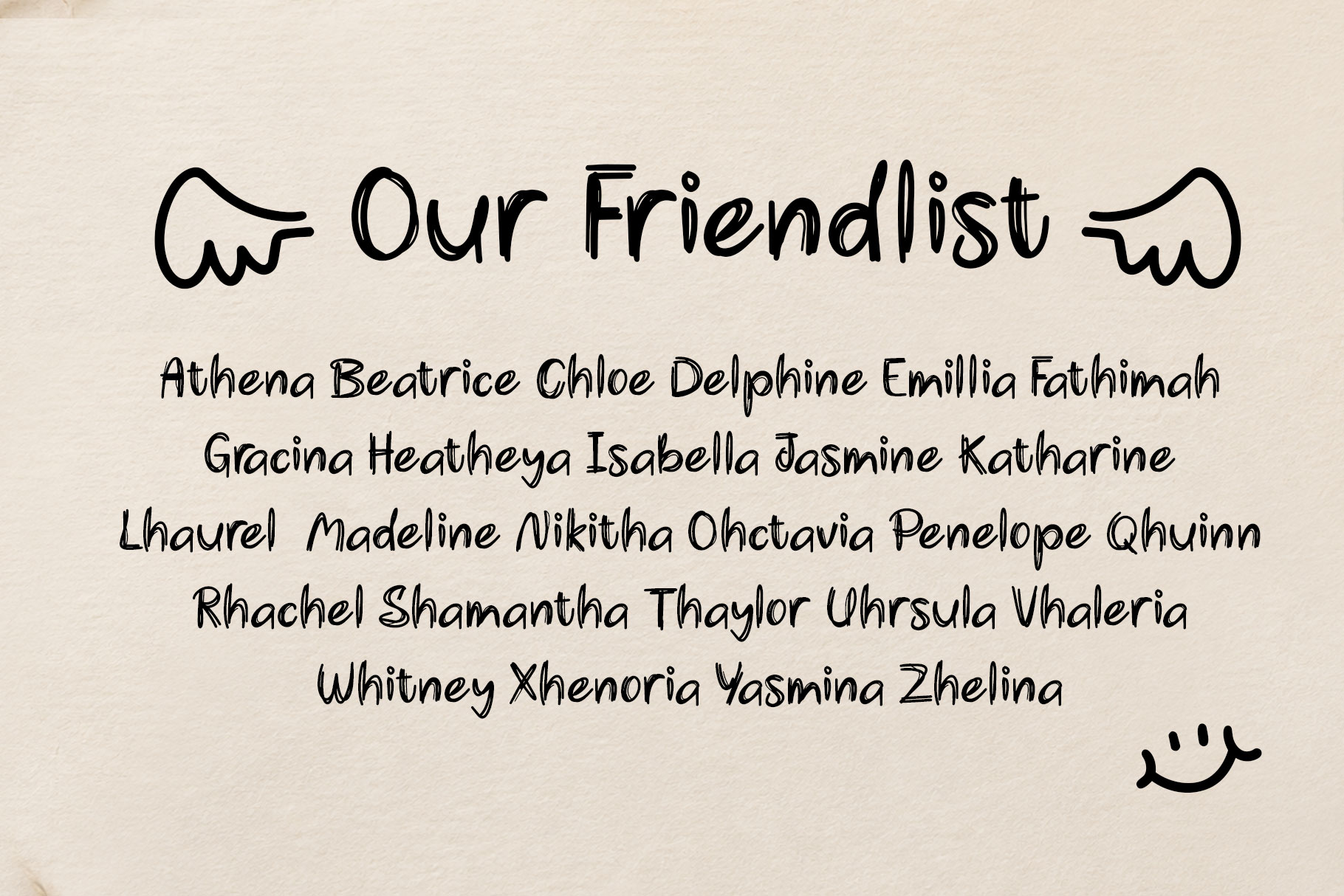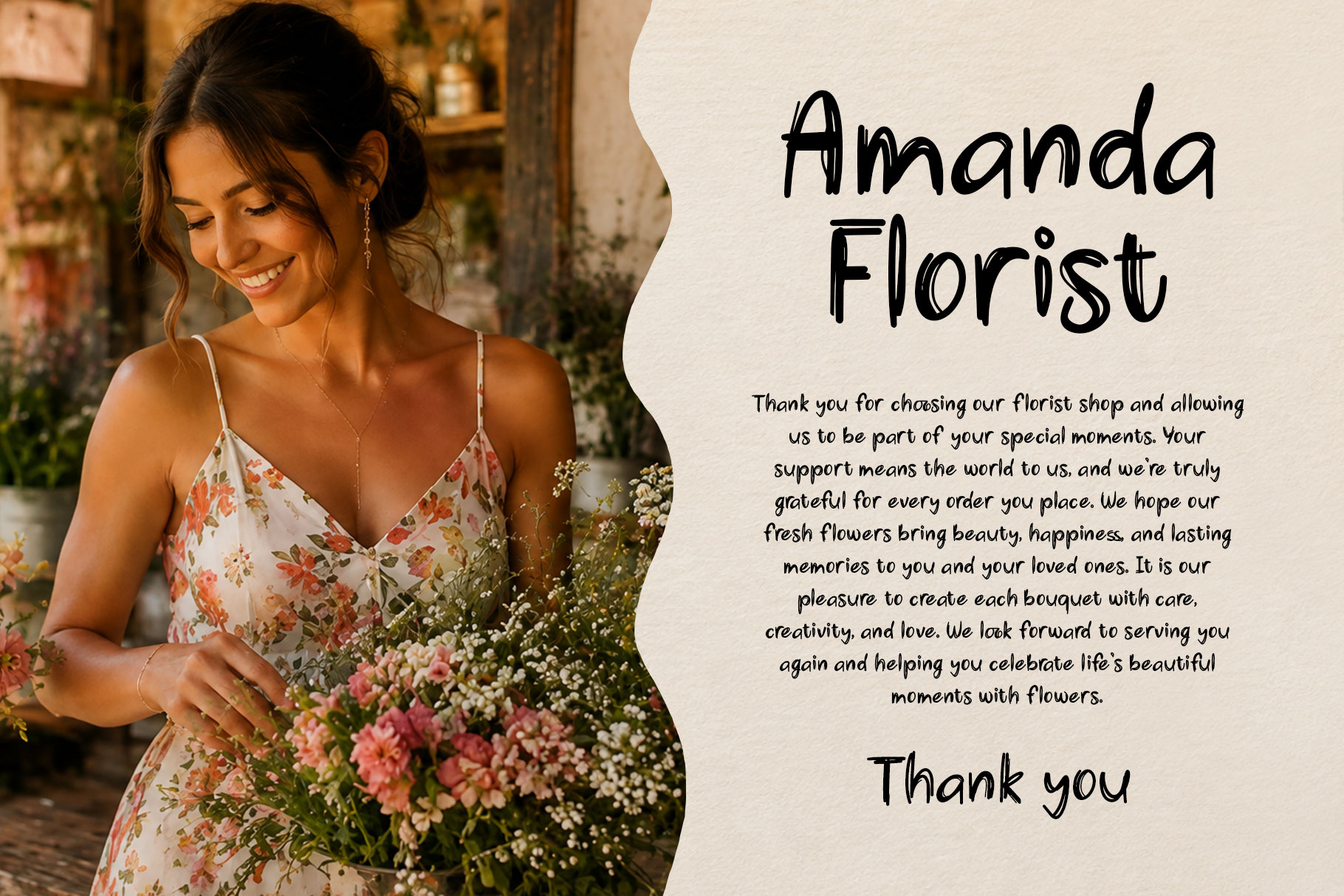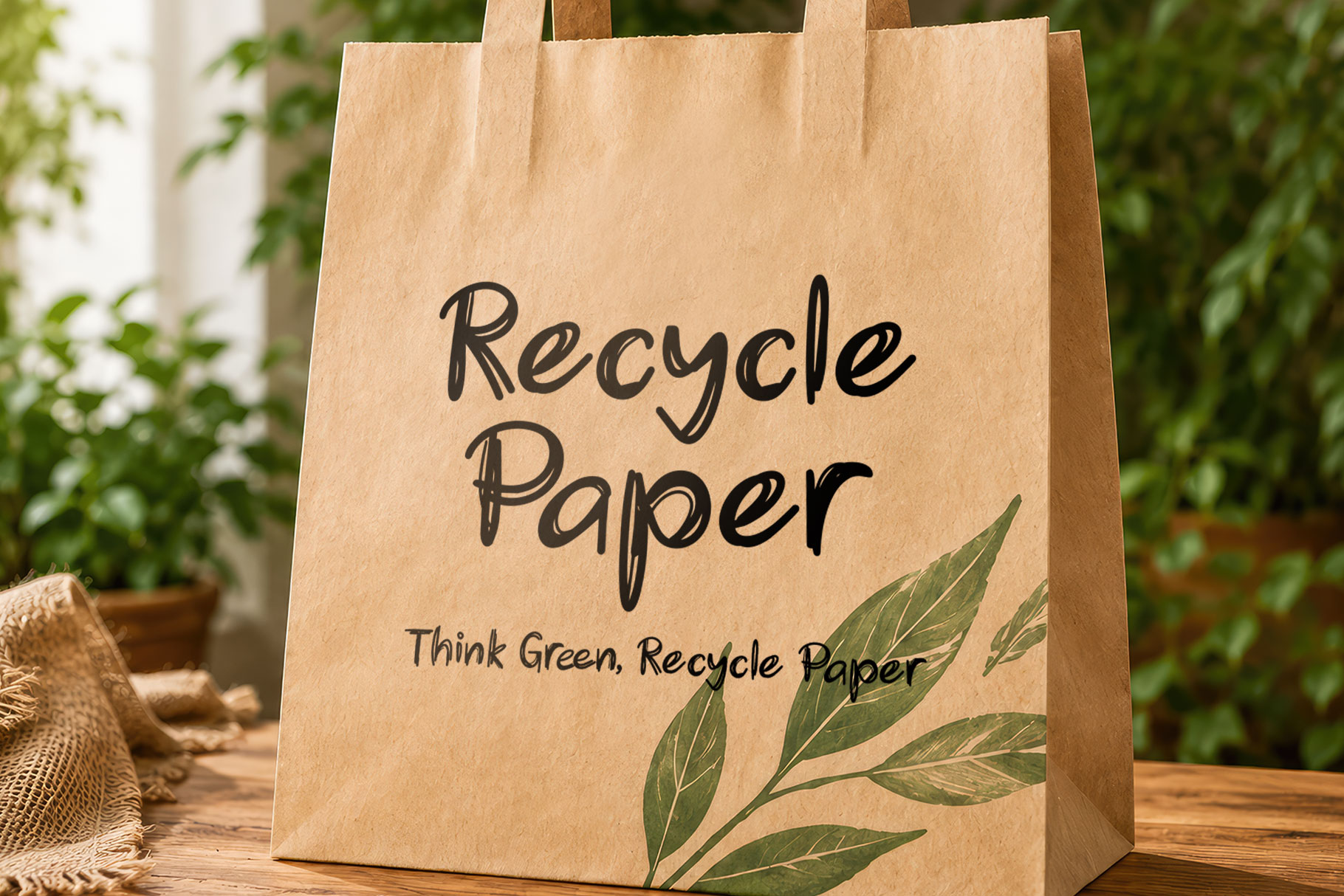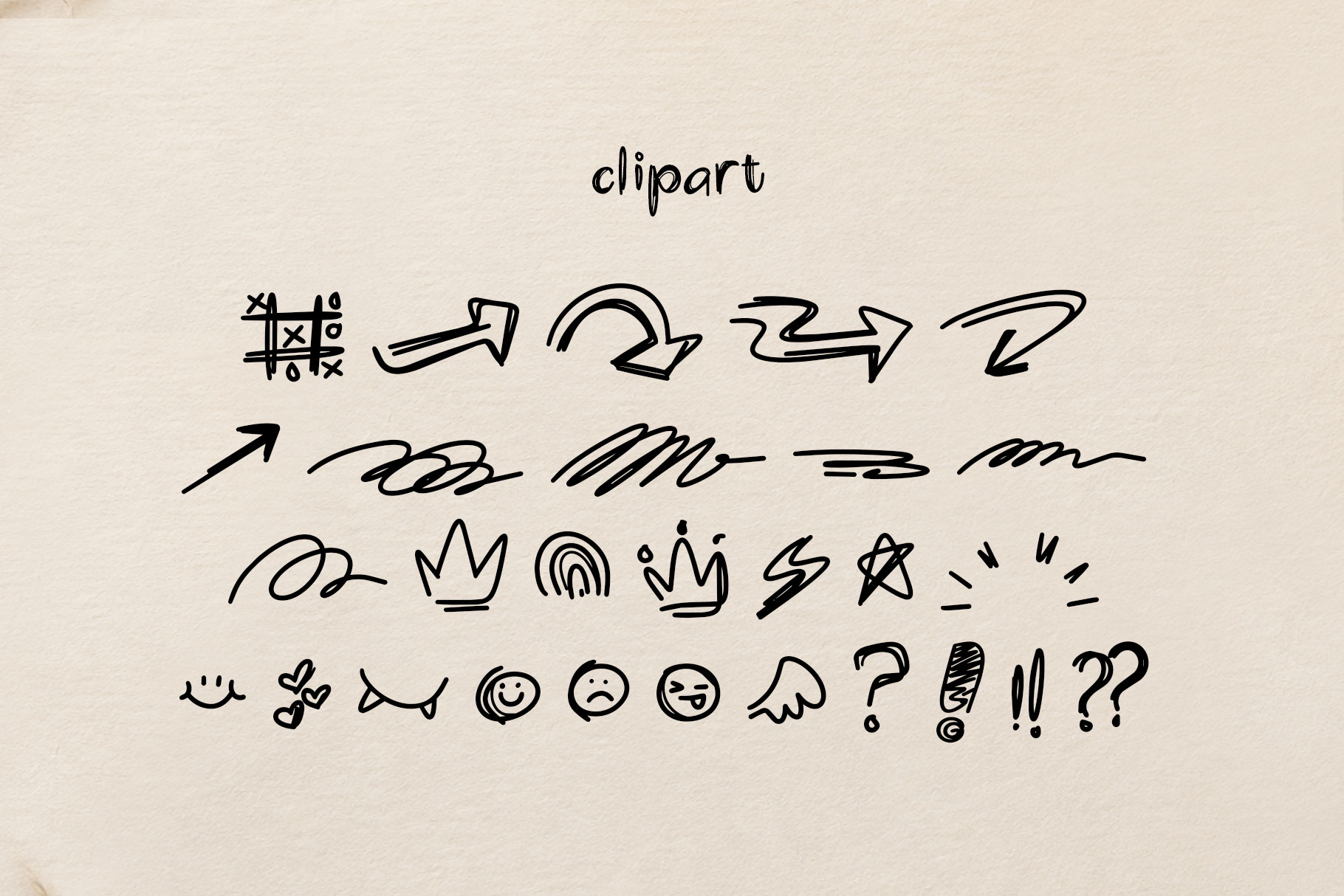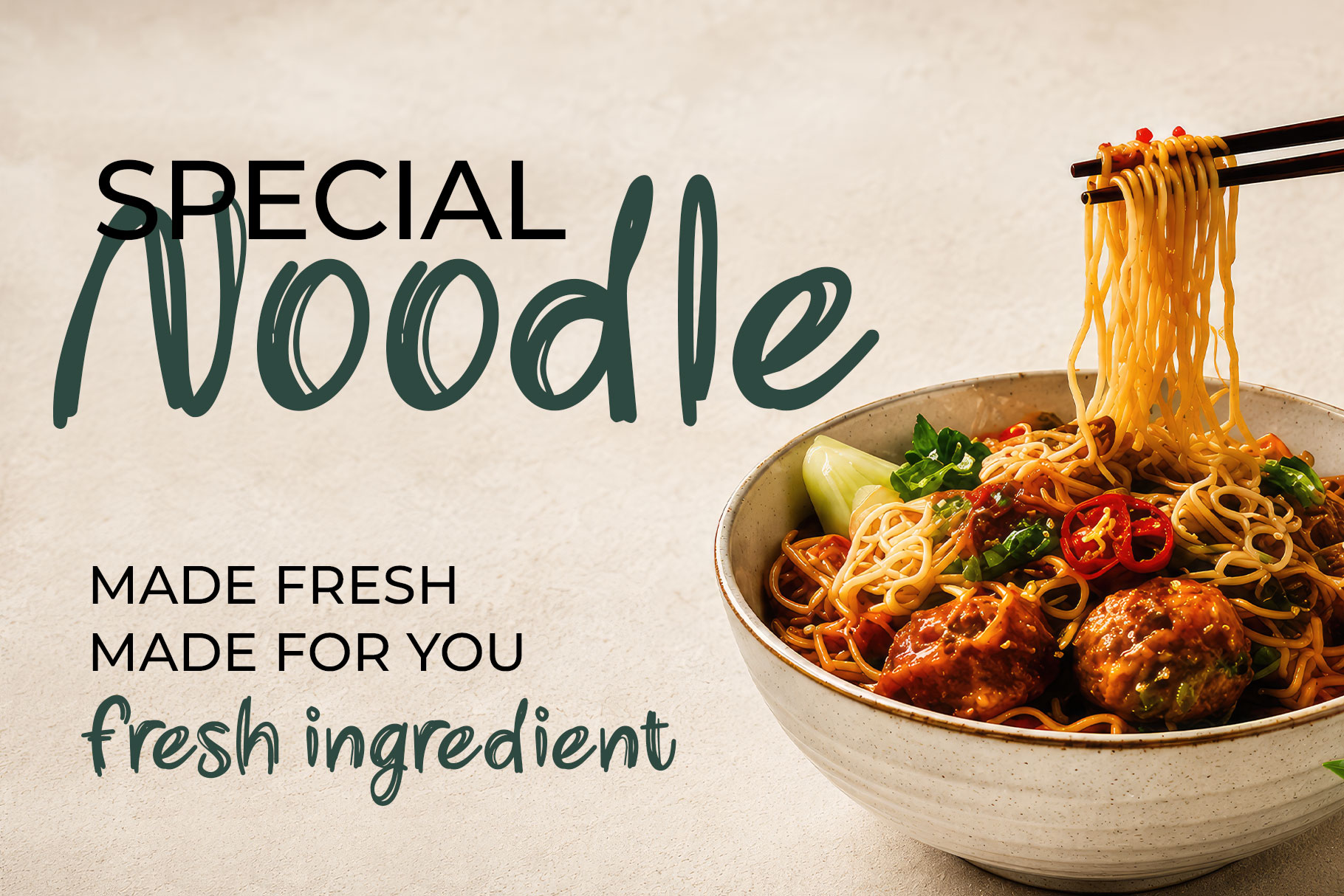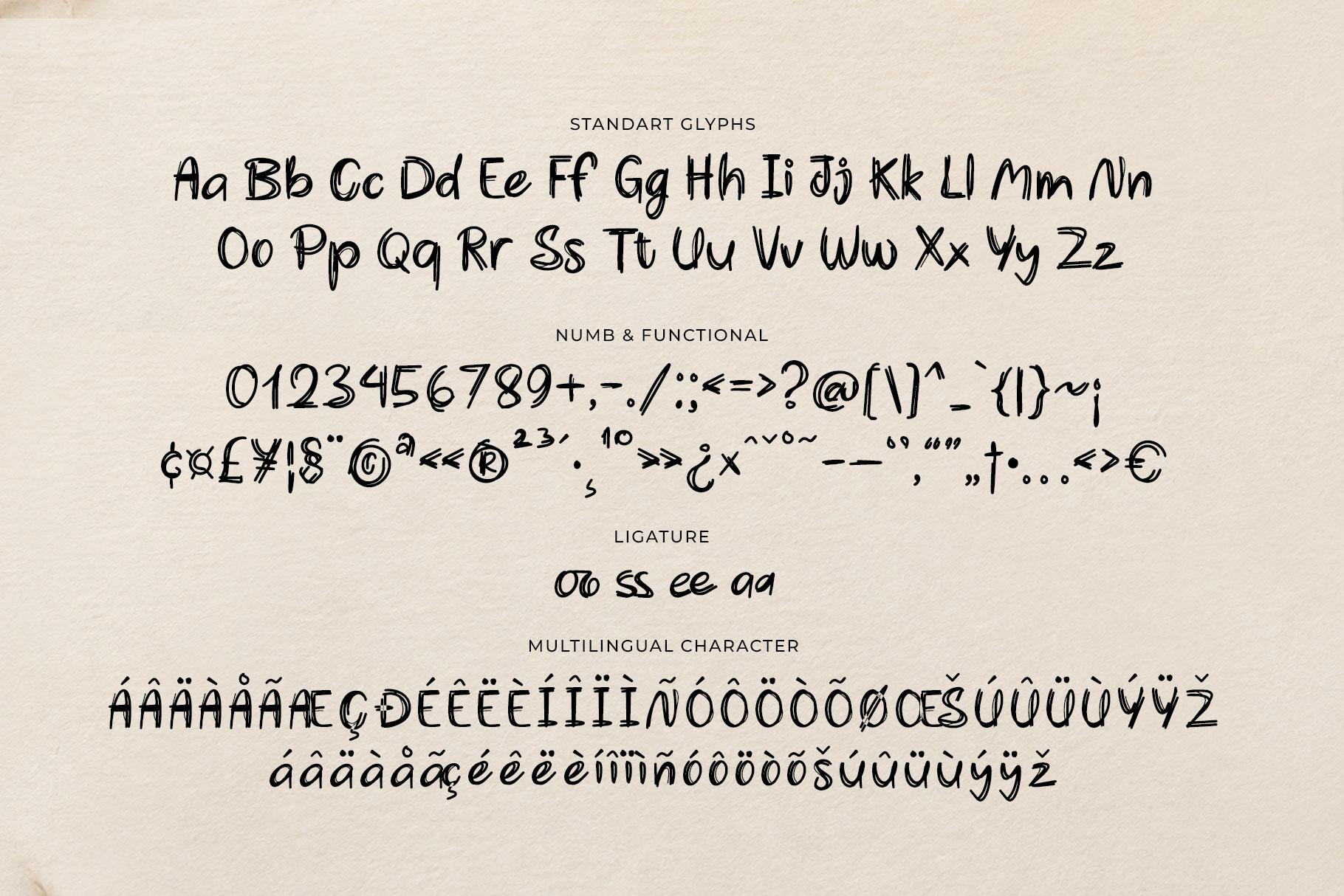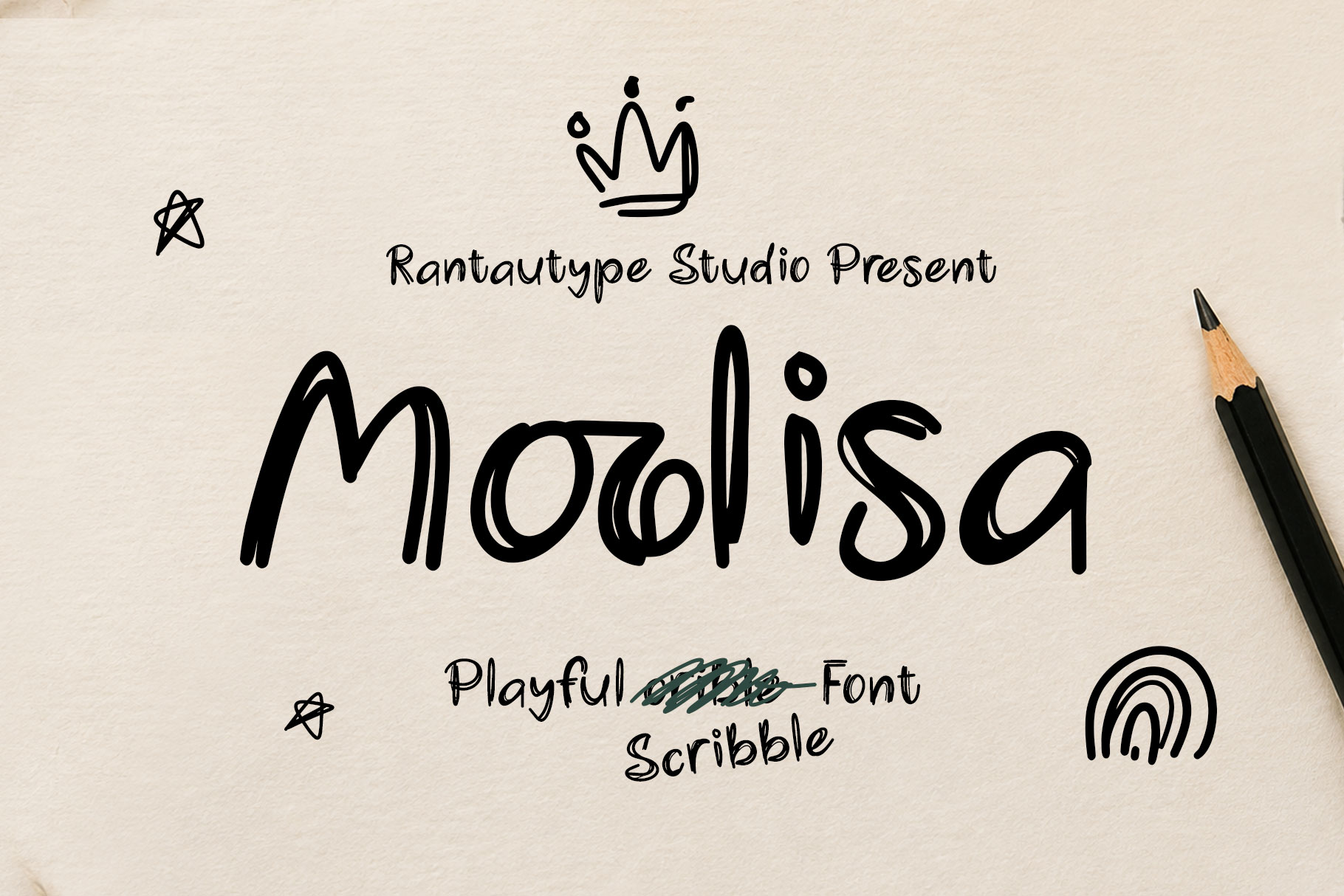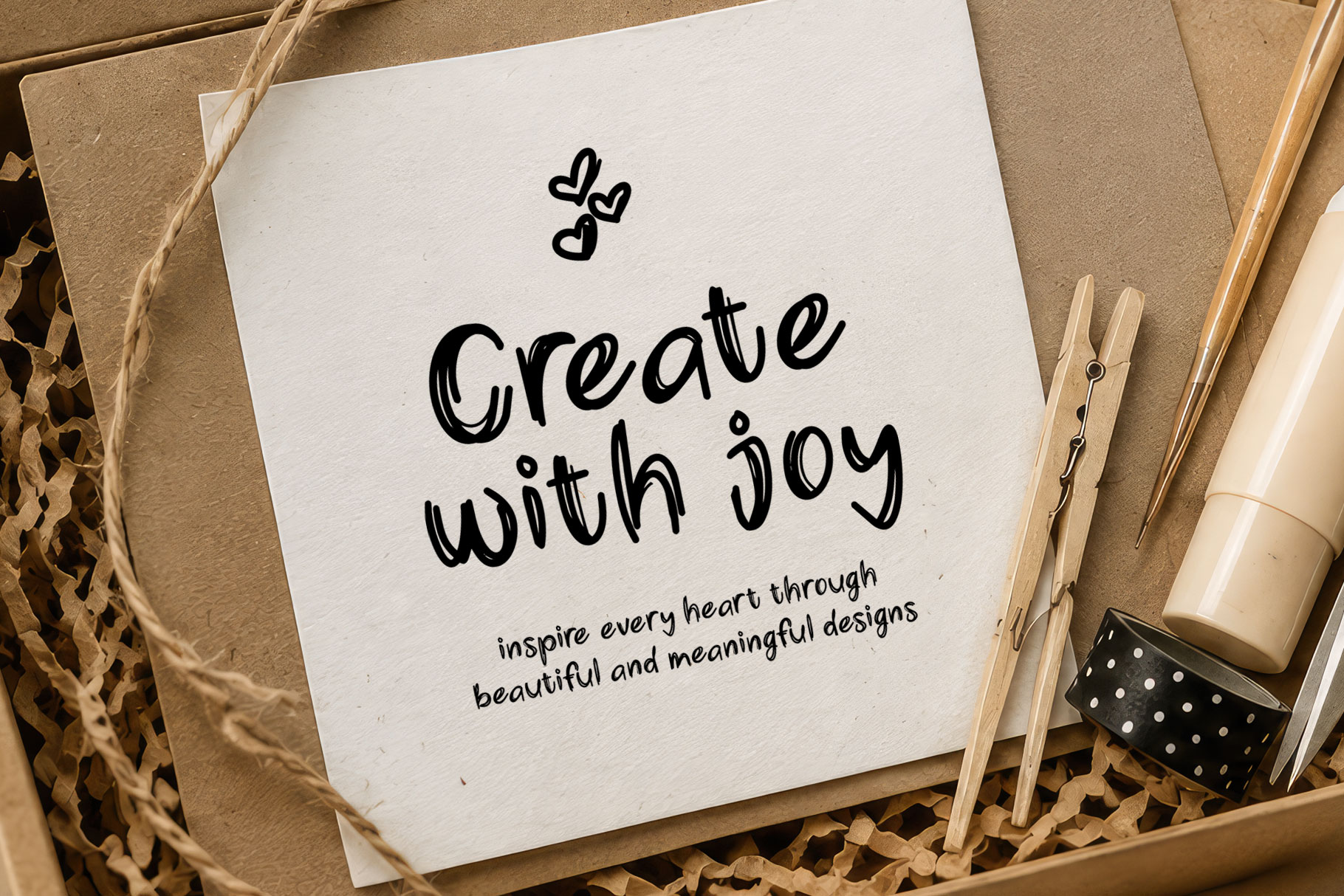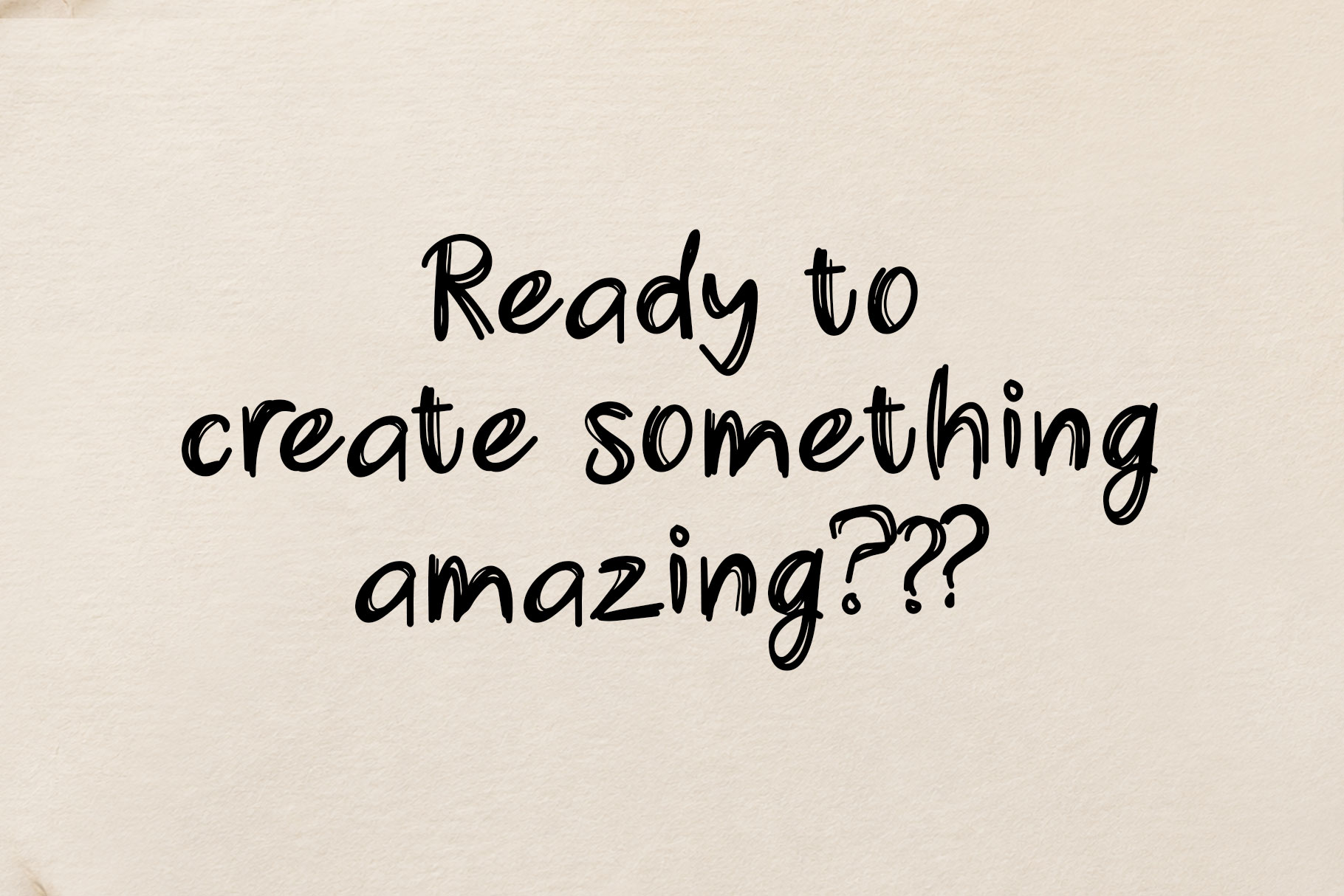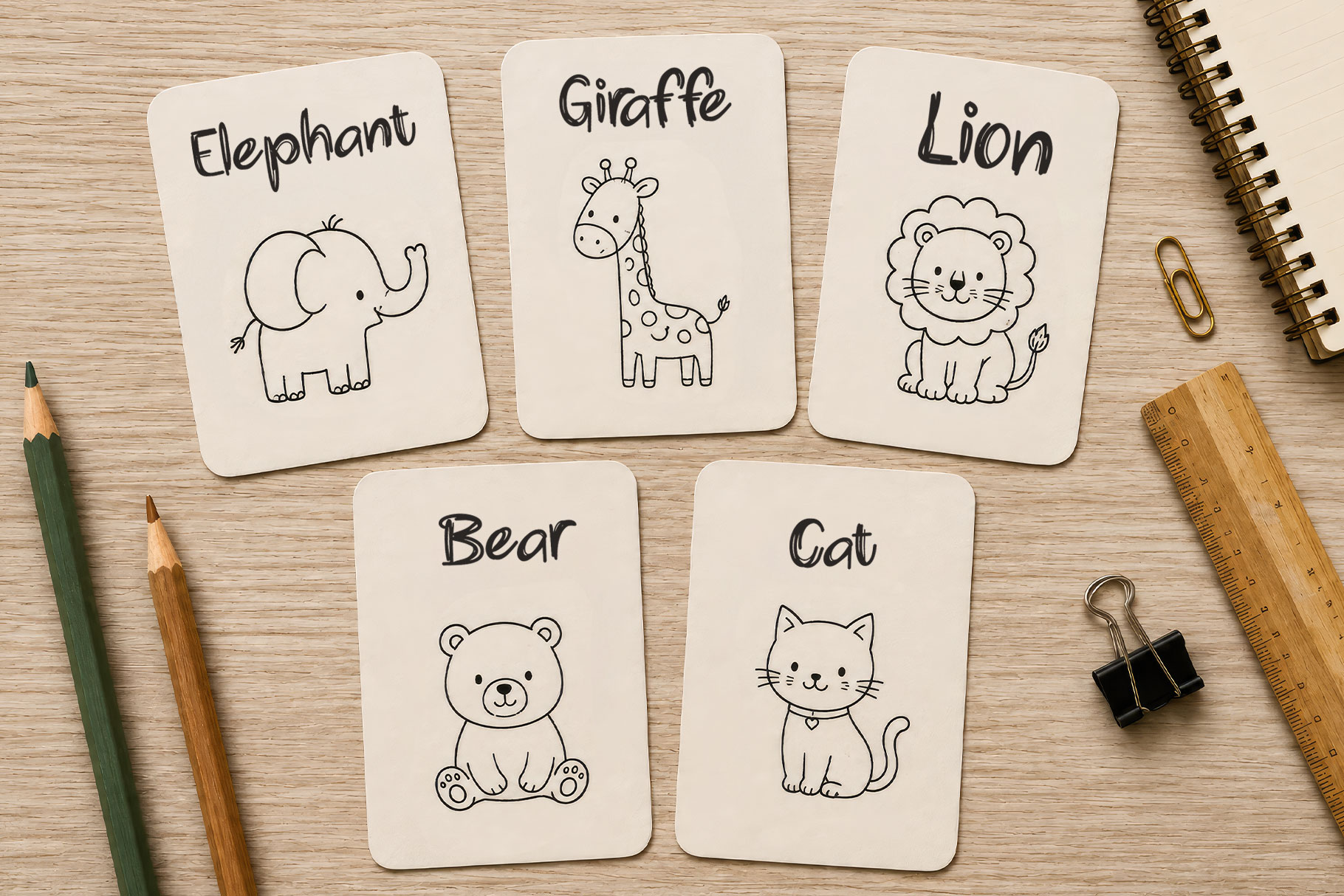
Moolisa is playful handwritten display font bursting with personality, warmth, and creative energy. Inspired by casual brush lettering and carefree doodles, it captures the spontaneous charm of hand-drawn strokes while maintaining excellent readability.
Moolisa is a perfectly choice for any creative endeavor, creating, modern, lifestyle design such as logotype, title, cover, branding, invitations, social media posts, advertisements, printed quotes, product packaging, corporate brand, product designs, labels, watermarks, special events and any other project with playful and creative touch.
Moolisa Playful Scribble Font